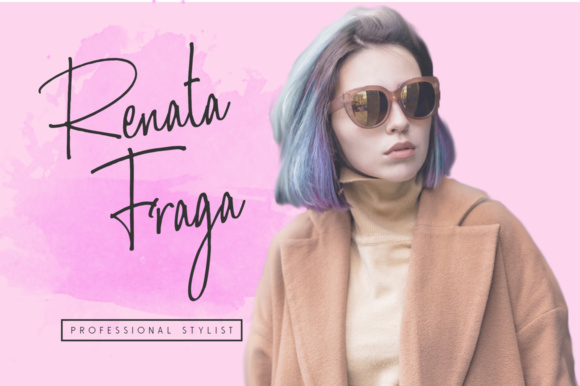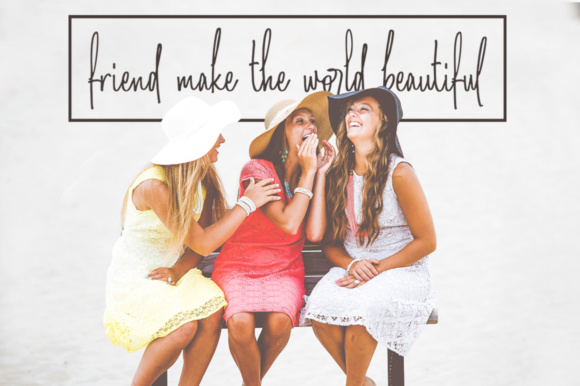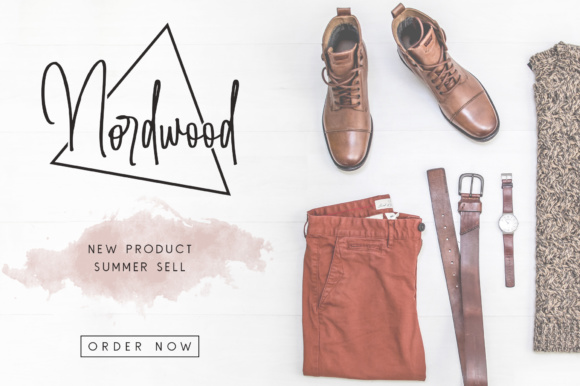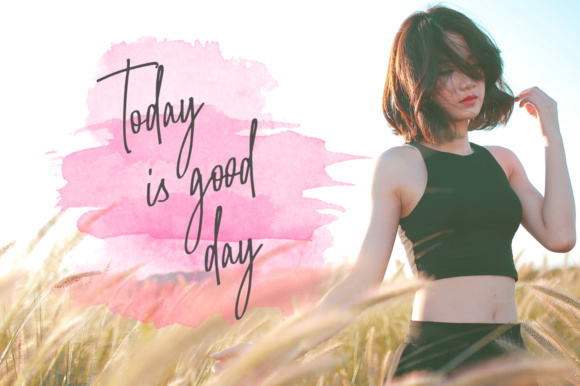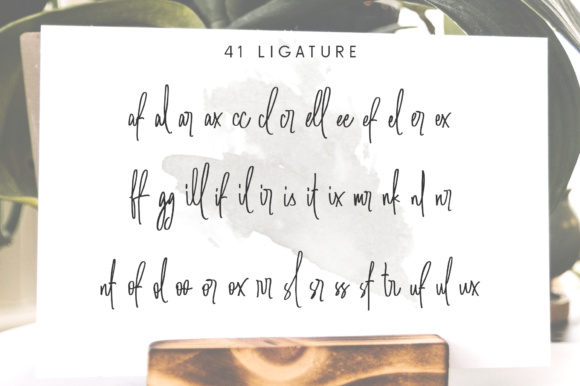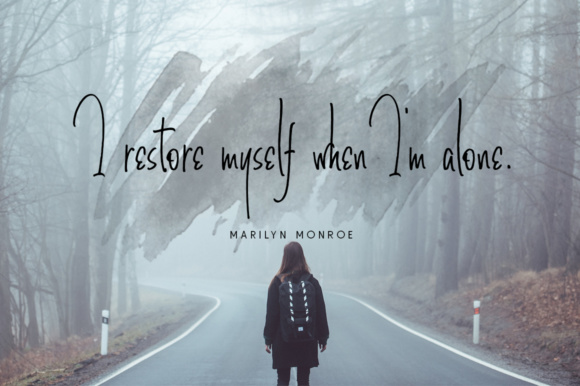
Amanda Santiago Font: Elevate Your Design with a Handcrafted Touch
In the world of typography, few fonts manage to capture the essence of handcrafted elegance as beautifully as Amanda Santiago Font. This stunning script font is designed to bring an authentic, personal touch to your designs, making it perfect for a wide range of creative projects. Whether you’re a designer looking for the perfect typography to elevate your client’s brand or a crafter seeking to add a unique flair to your DIY projects, Amanda Santiago Font is an exceptional choice.
The Beauty of Amanda Santiago Font
Amanda Santiago Font stands out with its gracefully flowing lines and distinctive character set. This script font is meticulously crafted to mimic the look of handwritten text, imbuing your designs with a sense of warmth and personality. The font’s authentic and handcrafted look makes it an excellent option for projects where you want to convey a sense of care, attention to detail, and individuality.
Versatility at Its Best: 5 Stylish Variations
One of the key advantages of Amanda Santiago Font is its versatility. Available in 5 different styles, this font collection offers a range of options to suit various design needs and preferences. Whether you’re looking for something classic and understated or bold and expressive, Amanda Santiago Font has a style that can help you achieve your vision.
The applications for Amanda Santiago Font are endless. Here are some of the most popular uses for this beautiful script font:
• Signatures and Logotypes: Create custom signatures or logotypes that stand out with a personal touch.
• Wedding Invitations: Add a touch of elegance and romance to your wedding invitations and stationery.
• Quotes Art: Transform inspirational quotes into stunning visual art pieces.
• Website Headers: Elevate your website’s design with stylish and eye-catching headers.
• And Much More: From branding and packaging to posters and social media graphics, the possibilities are vast.
Why Choose Amanda Santiago Font?
With so many fonts available, why should you choose Amanda Santiago Font for your next project? Here are a few compelling reasons:
• Unique and Handcrafted Look: Stand out from the crowd with a font that truly looks handcrafted.
• High Versatility: With 5 styles to choose from, you can easily find a version that fits your project’s needs.
• Ease of Use: Designed to be user-friendly, Amanda Santiago Font can be easily integrated into your design workflow.
Tips for Using Amanda Santiago Font Effectively
To make the most of Amanda Santiago Font, consider the following tips:
• Pair with Complementary Fonts: Combine Amanda Santiago Font with simpler fonts for body text to create visual contrast.
• Experiment with Colors and Textures: Play around with different colors and textures to enhance the handcrafted feel of the font.
• Adjust Letter Spacing: Fine-tune the letter spacing to ensure your text looks natural and easy to read.
Amanda Santiago Font is more than just a script font; it’s a tool for designers and crafters to add a personal, handcrafted touch to their projects. With its beautiful design, versatile styles, and wide range of applications, it’s an excellent addition to any creative toolkit. Whether you’re looking to create stunning wedding invitations, elegant logotypes, or inspiring quotes art, Amanda Santiago Font is sure to elevate your designs to the next level.